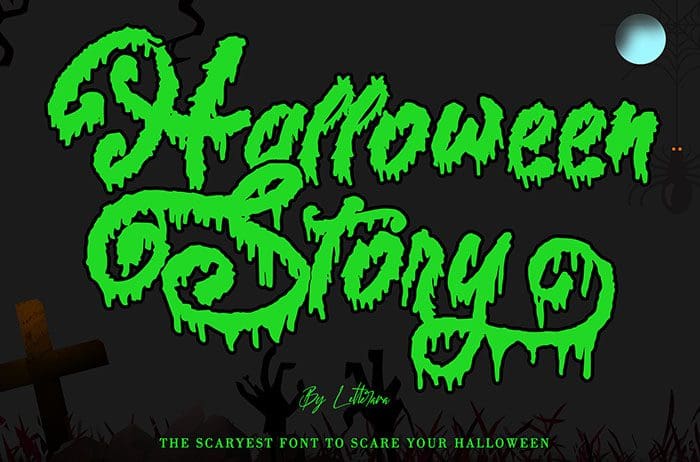
Halloween Story Brush Font
Halloween Story brush font is the ideal font for any Halloween project. Get inspired by its scary feel, and turn any Horror project into an eye-catcher! Created this font by Thomas Aradea. You can also search more free Brush Fonts. I hope you enjoy this font.